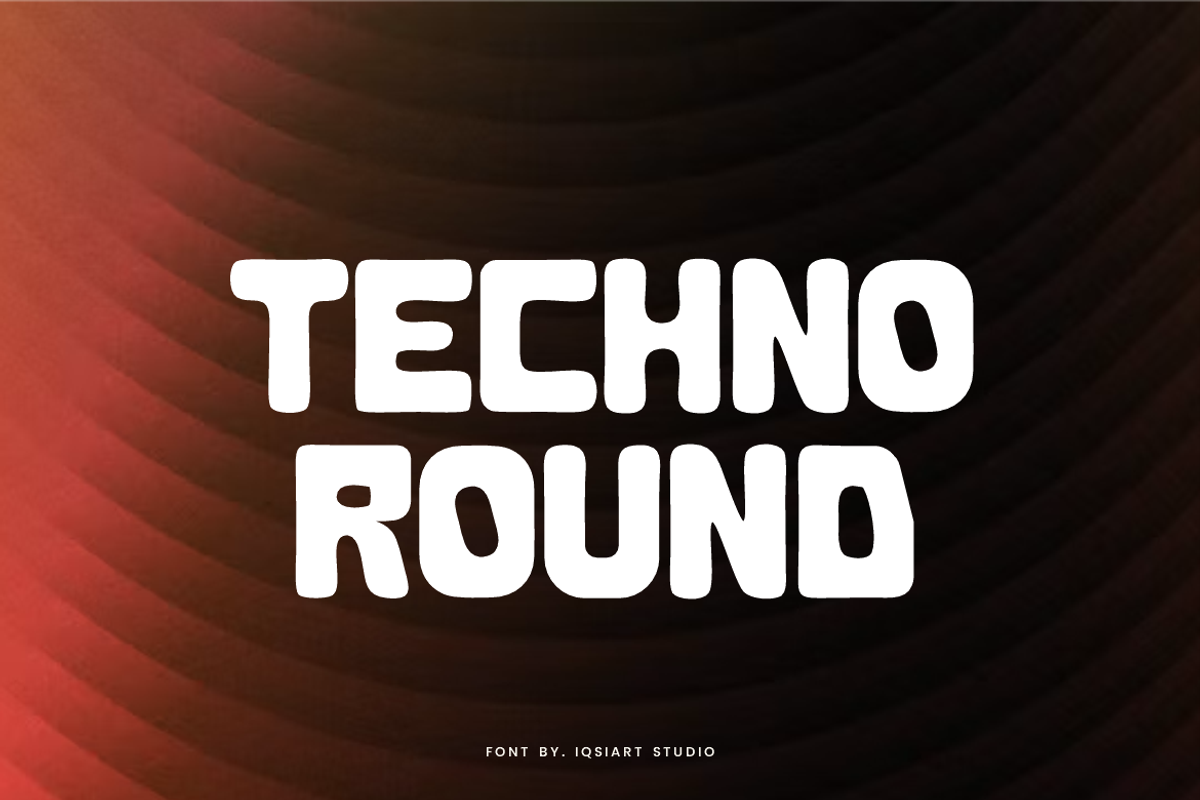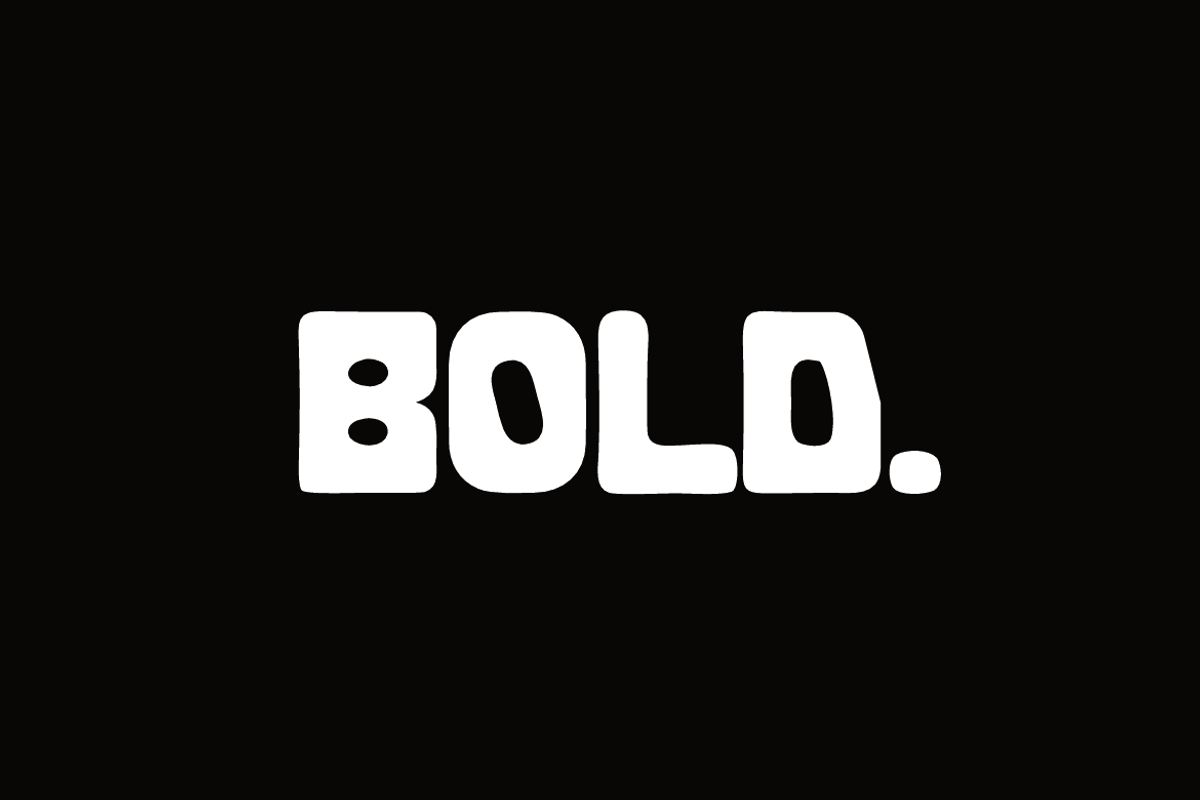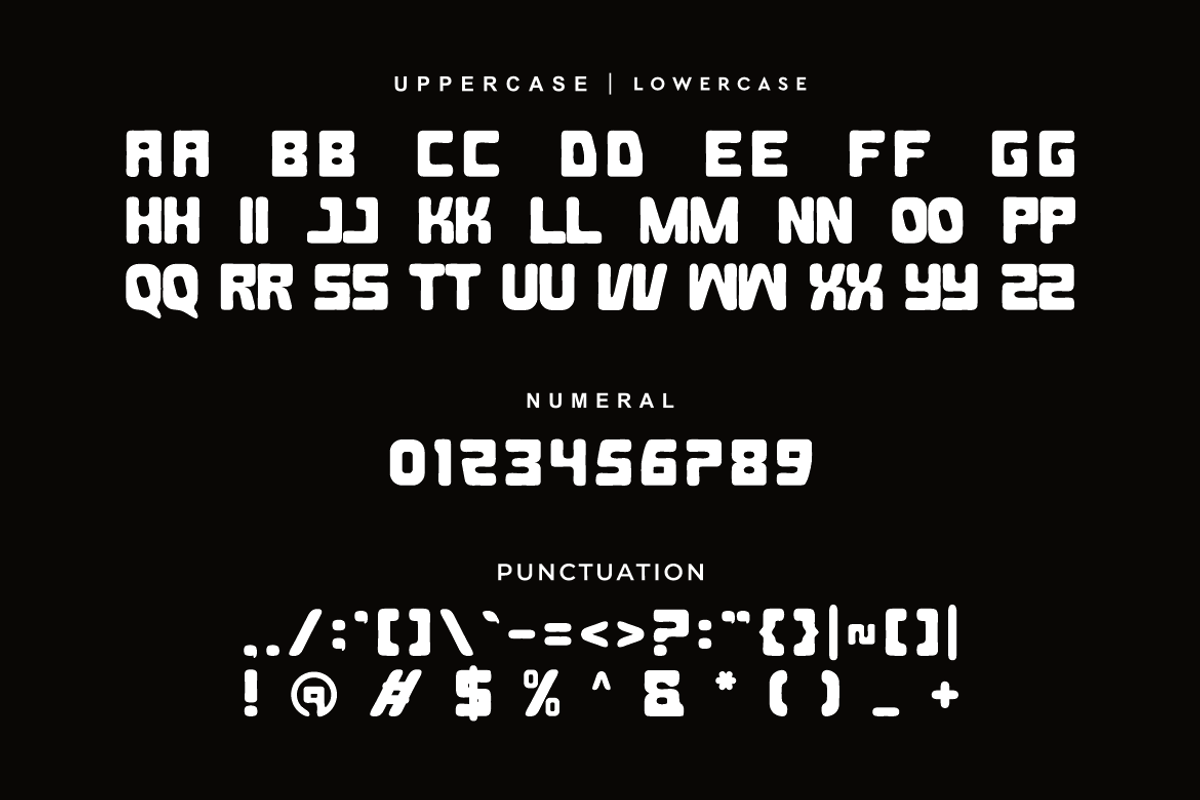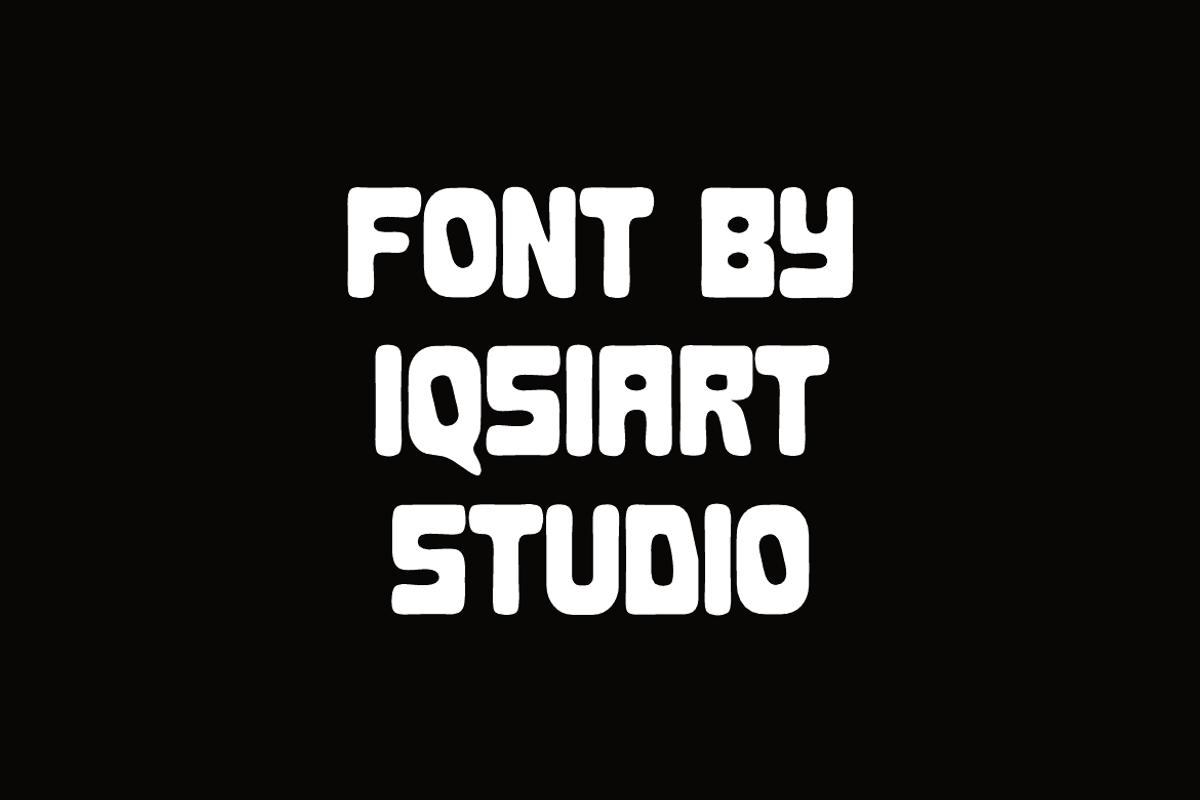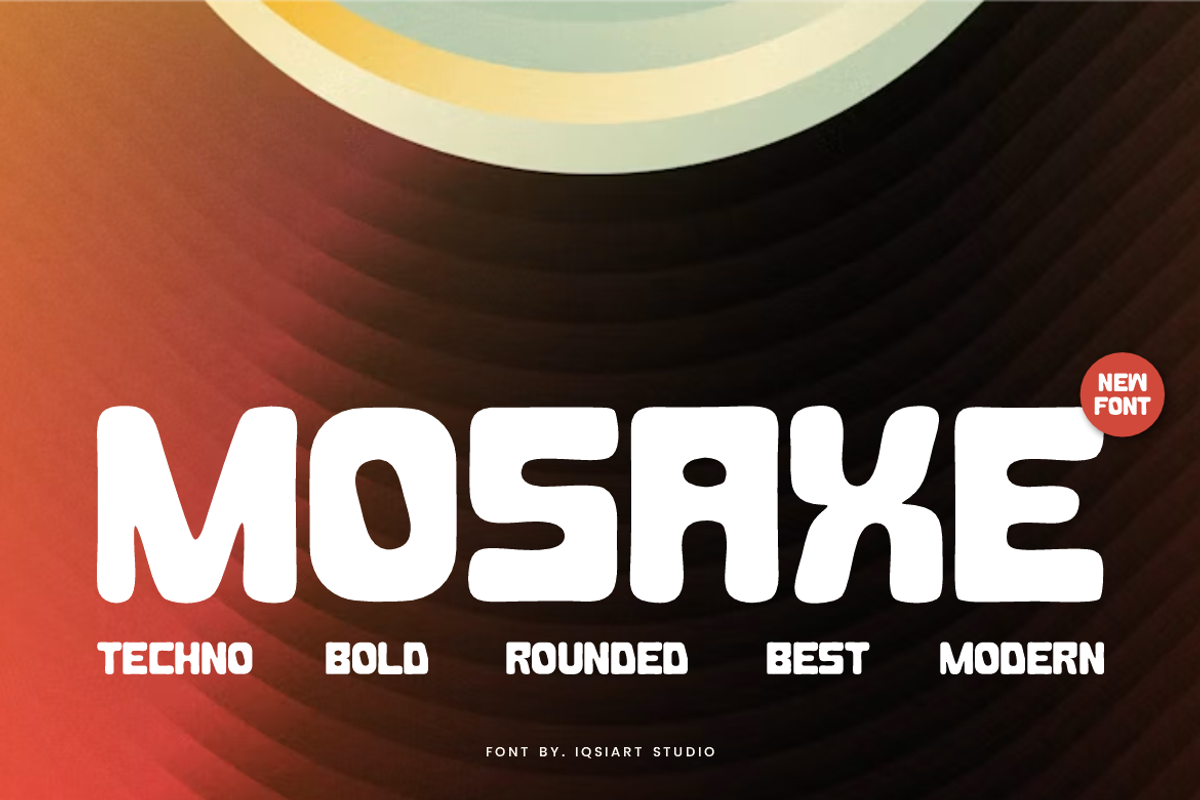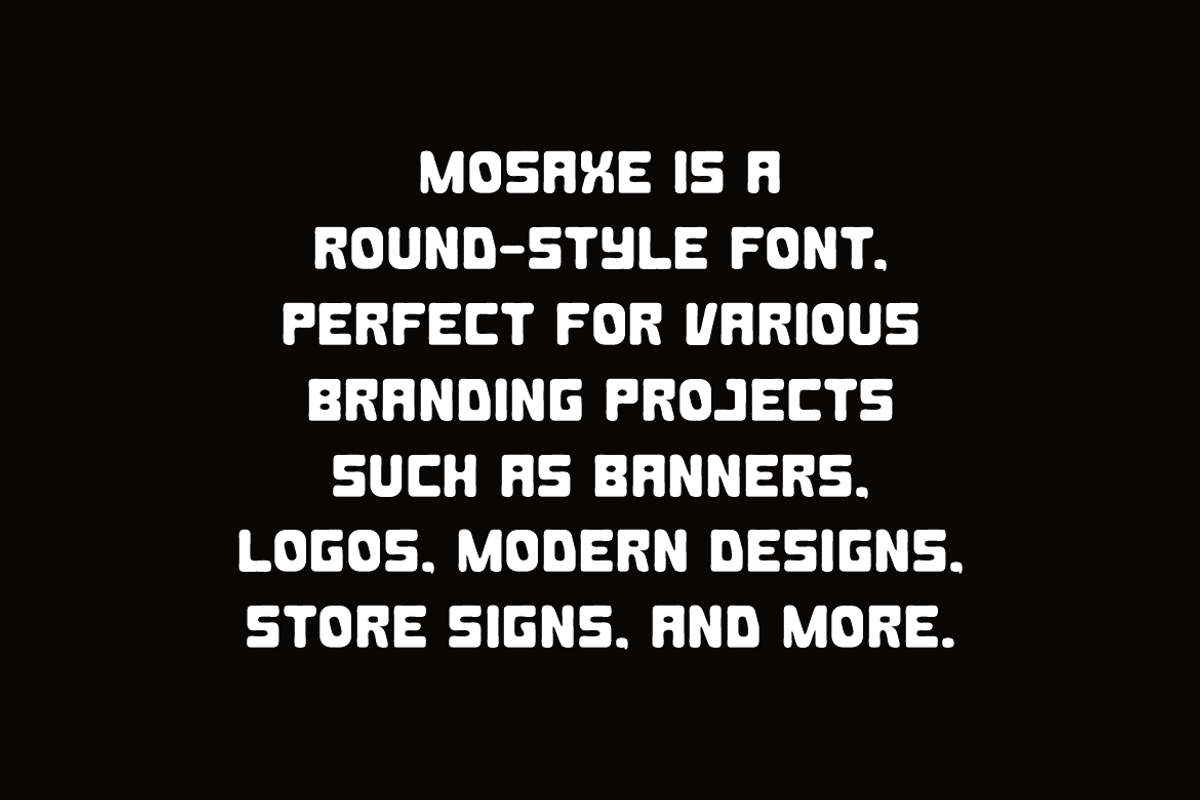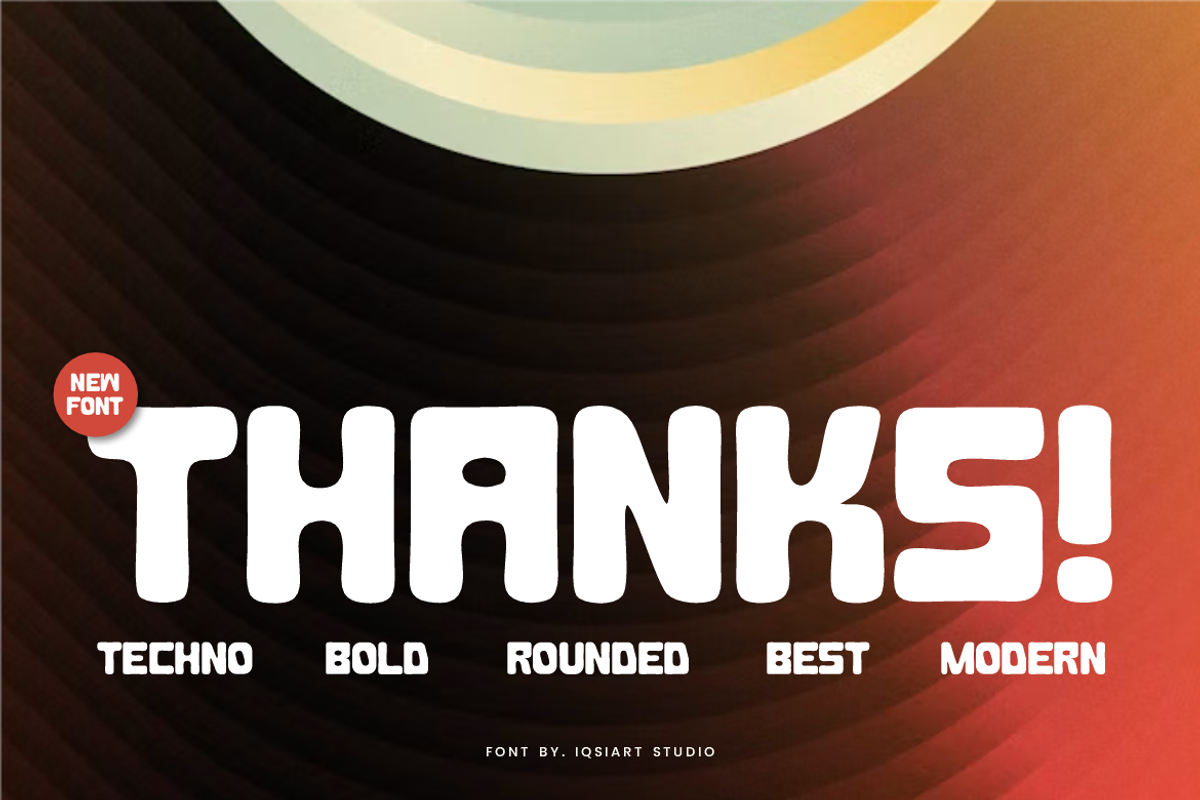
Mosaxe - Techno Round Font
Mosaxe Font is a bold and authentic display typeface
that suits a variety of design needs. We offer a wide range of themes